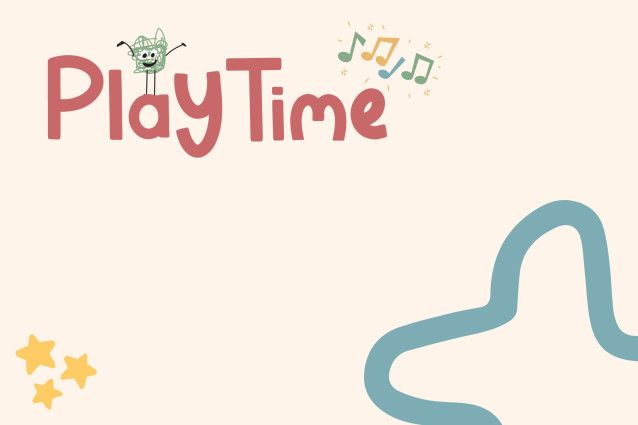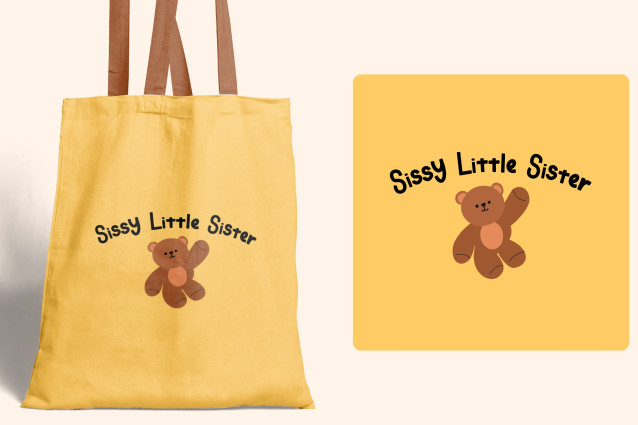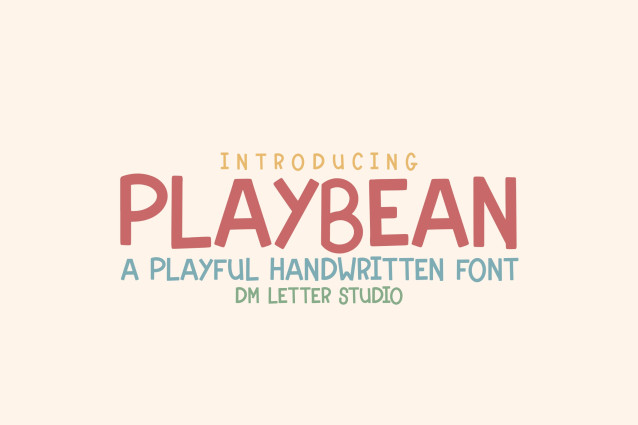
Playbean Display Font
Playbean Display Font is a cheerful and carefree handwritten font with rounded strokes and bouncy movement. Its soft, playful shapes make it perfect for kids’ designs, logos, product packaging, social media graphics, and anything that needs a burst of fun energy. Whether you’re designing for print or digital, Playbean brings a sense of joy and friendliness to your project.